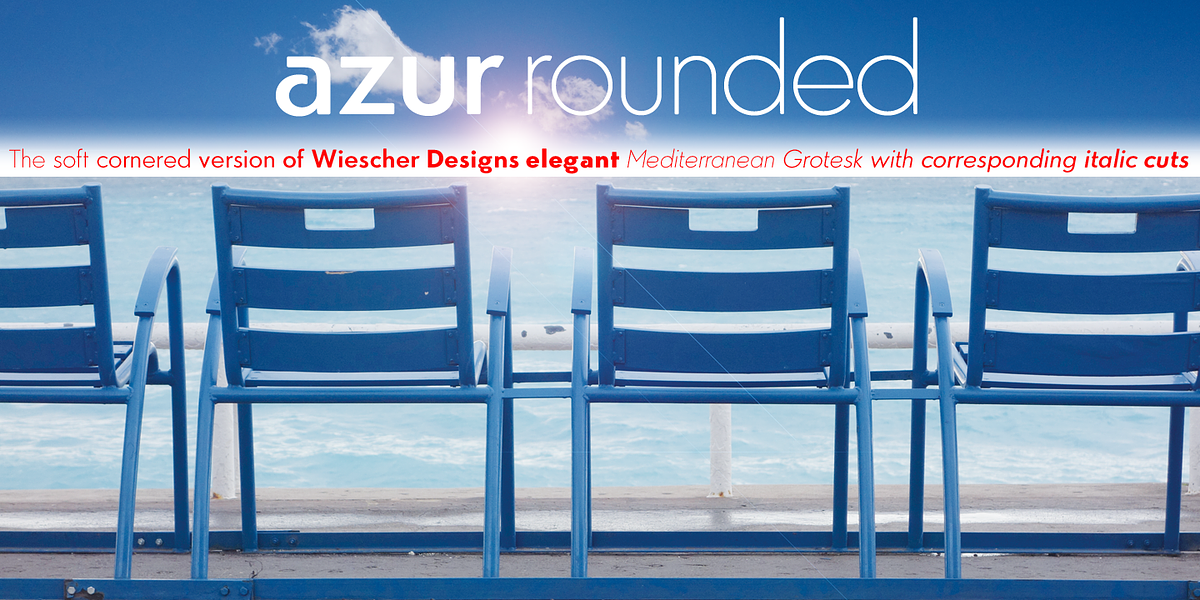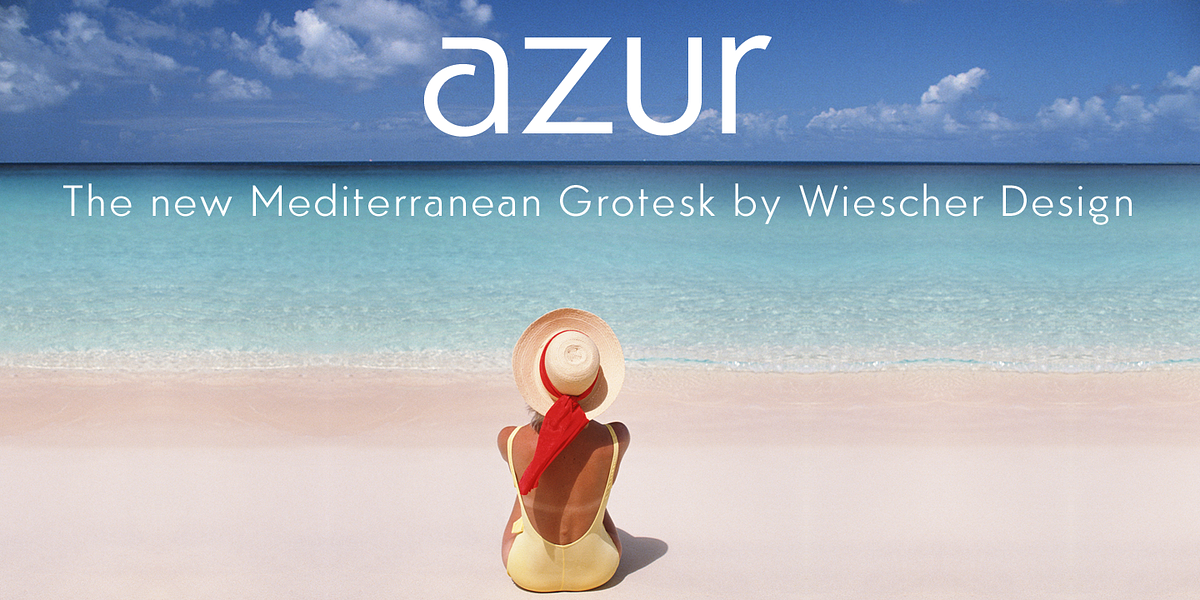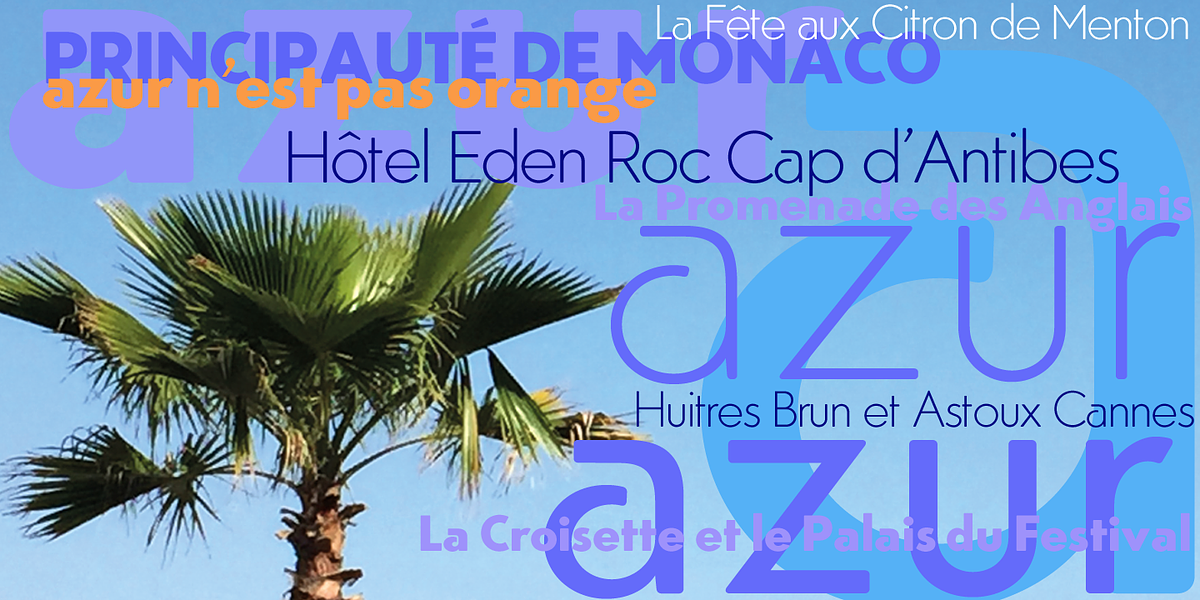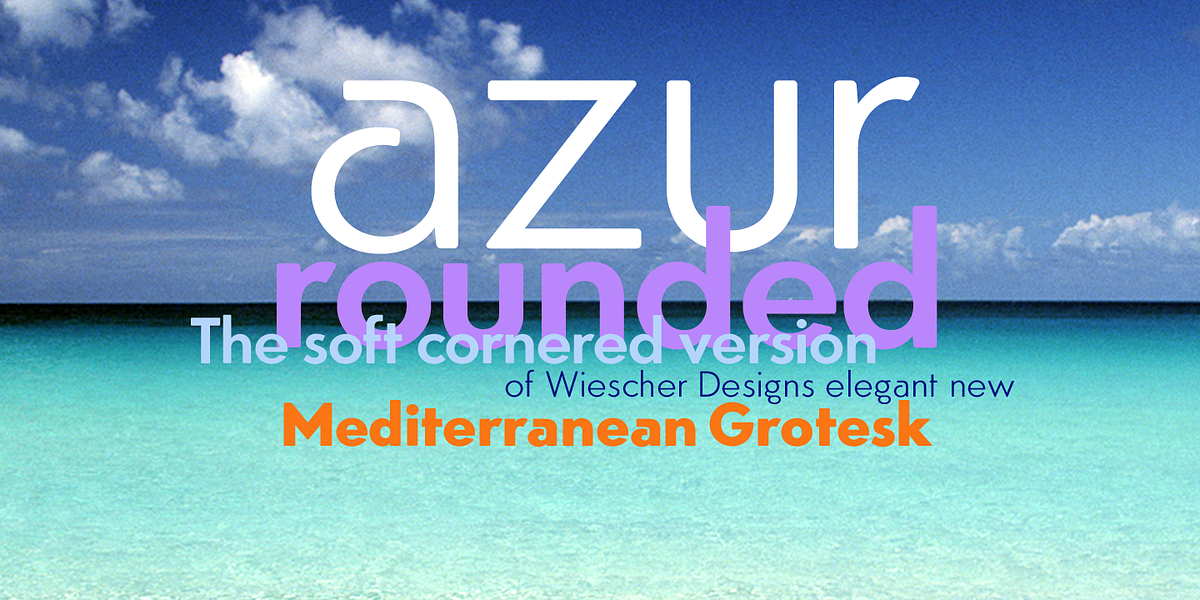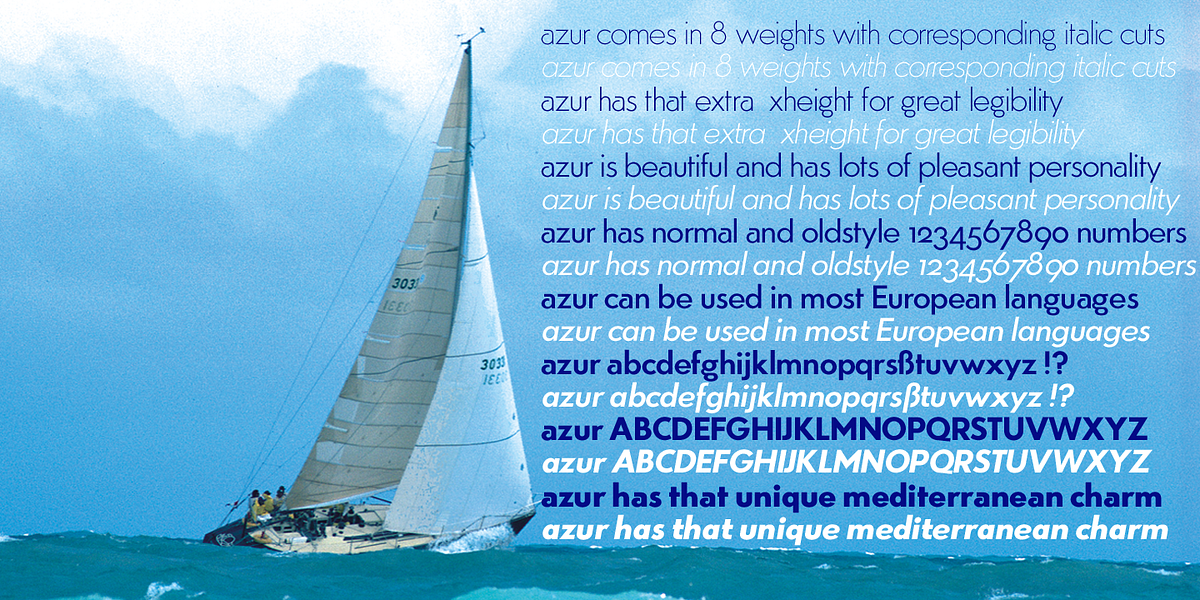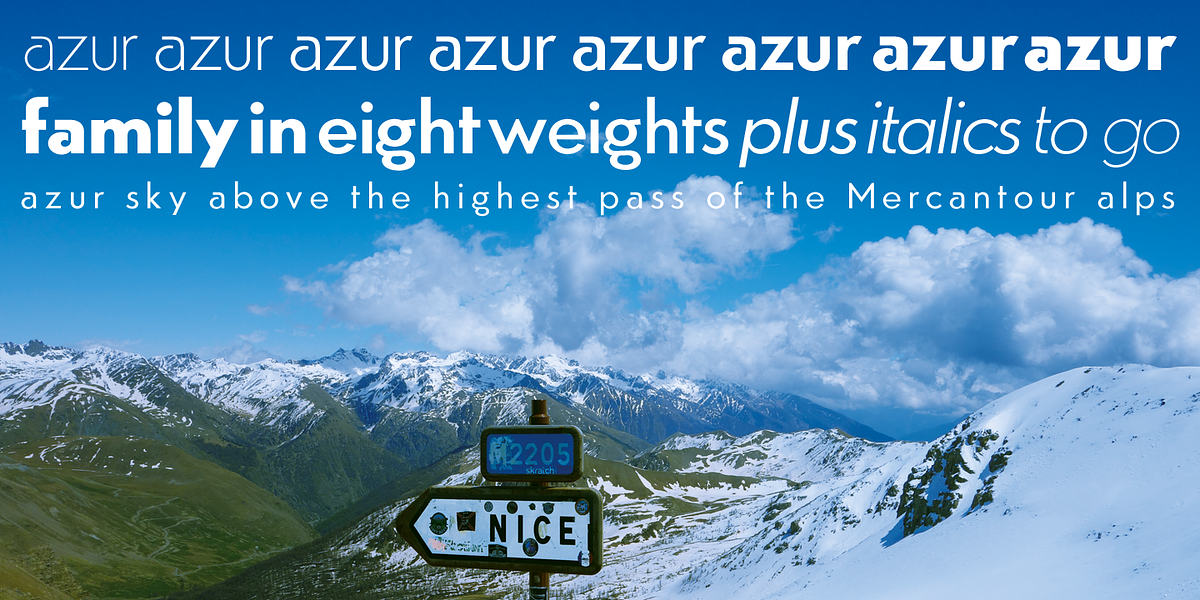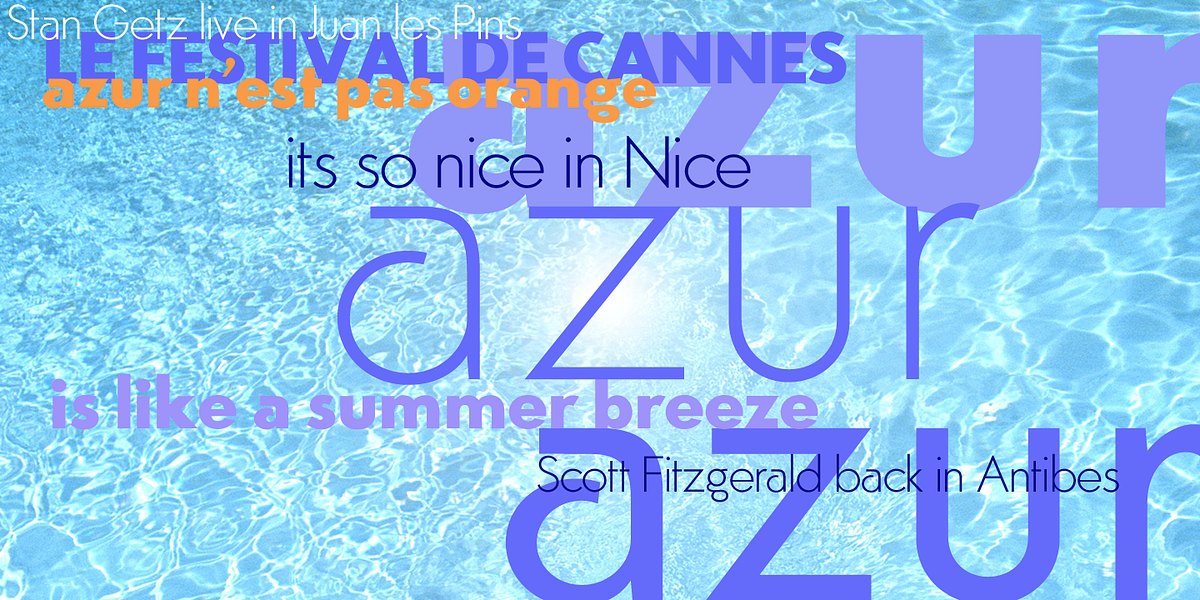
Azur
Azur is a geometric sans serif font inspired by the beauty of the Côte d'Azur and Provence Alpes Maritime Region. It features classic proportions with unique letterforms to give it a charming Mediterranean character. The font includes ligatures and old-style figures, as well as a rounded version for added friendliness. Real italic sets complete the typeface.